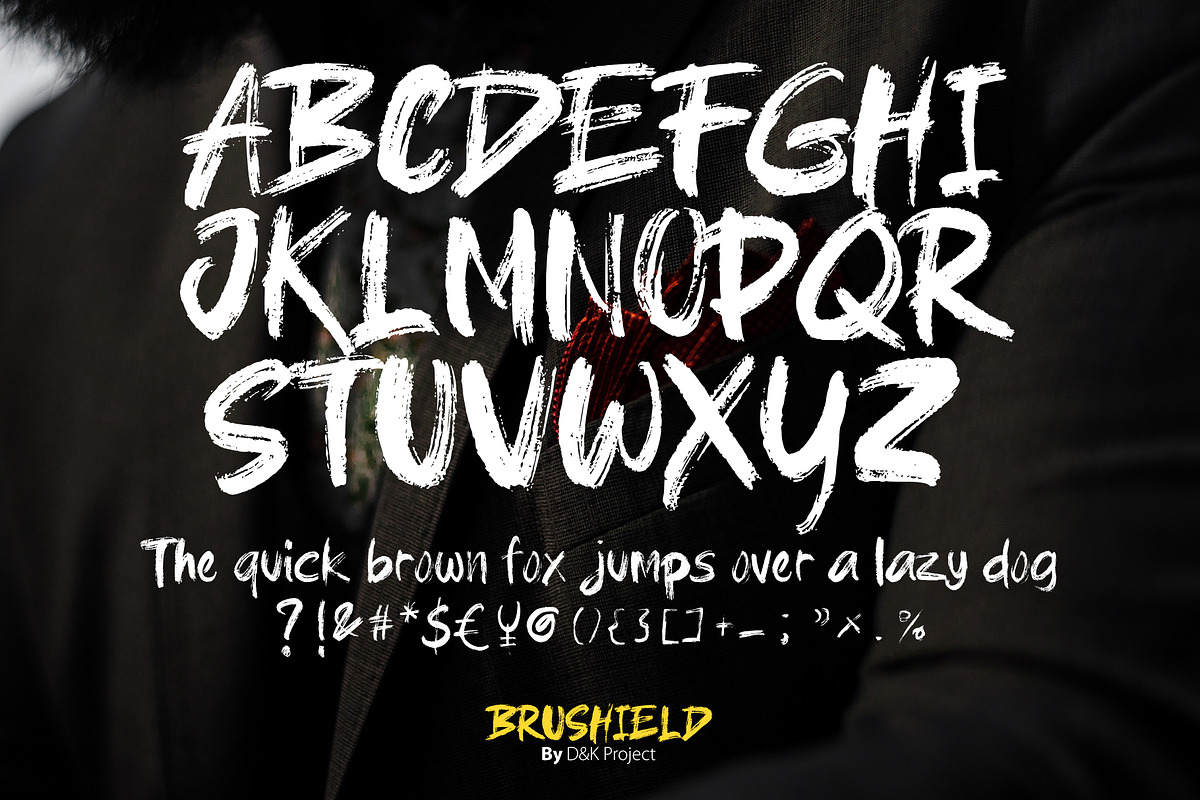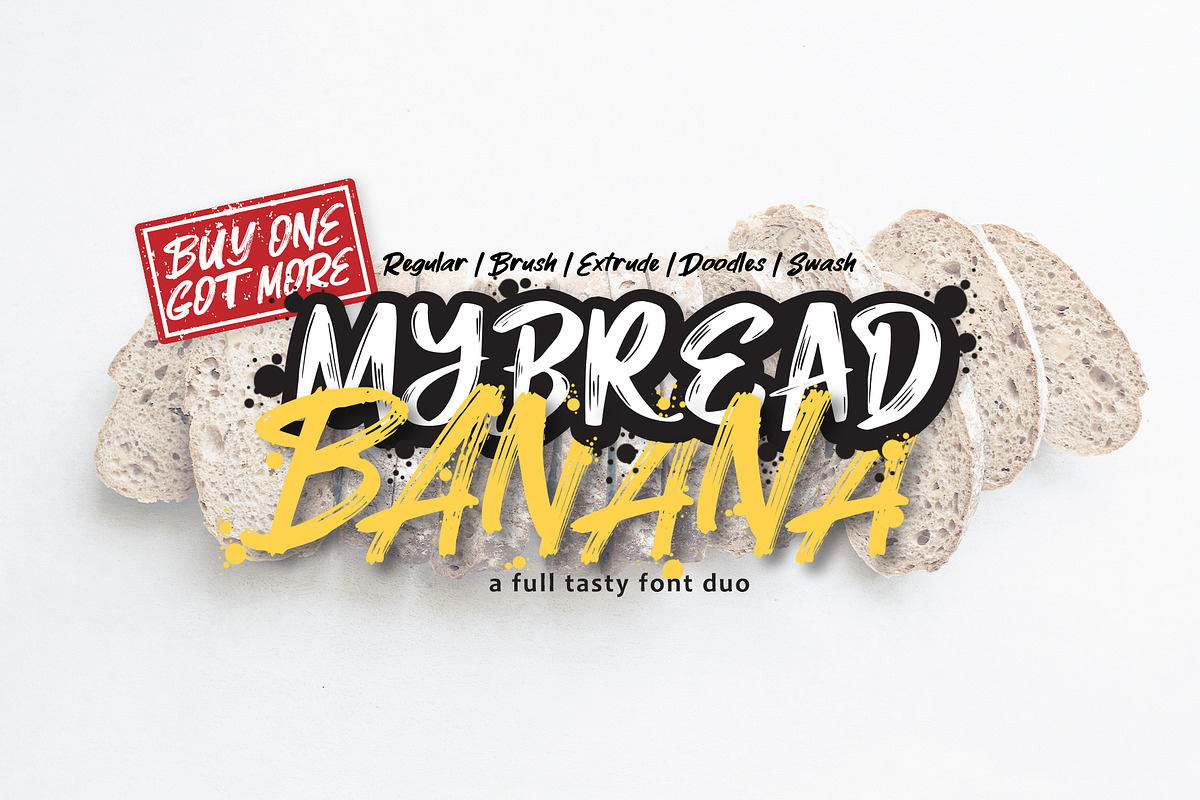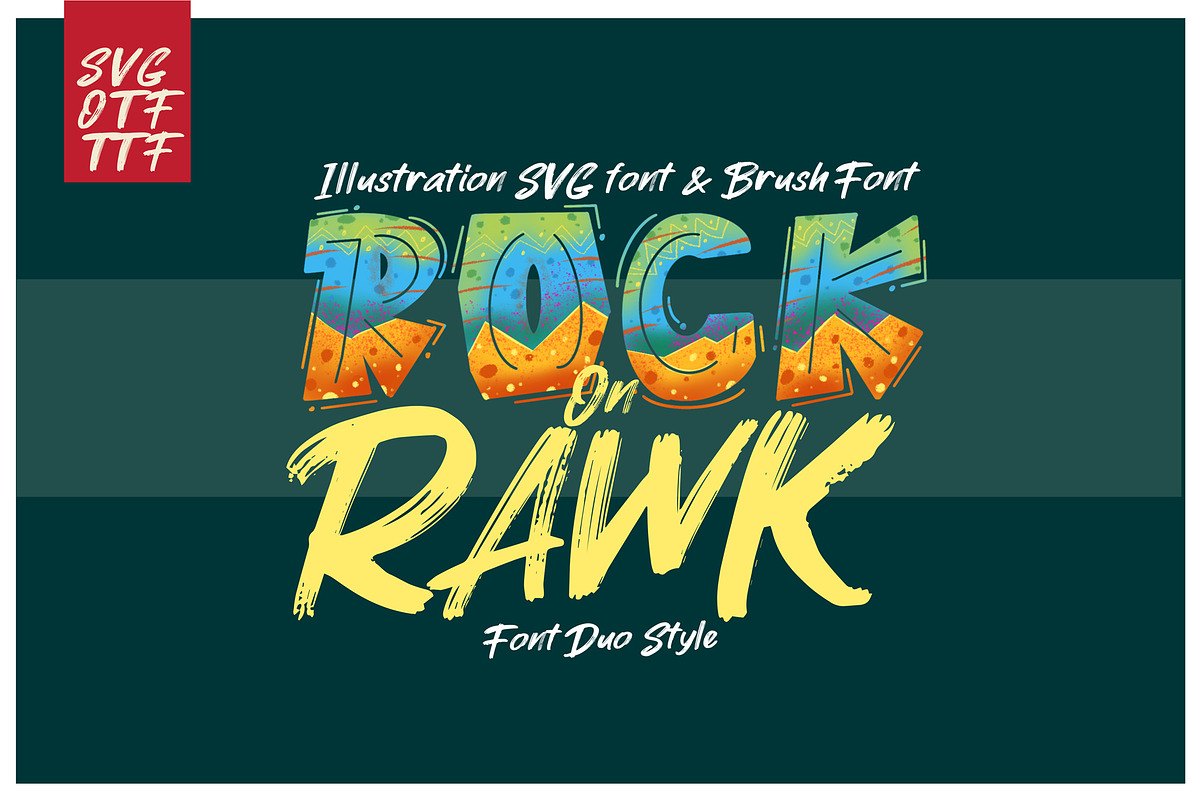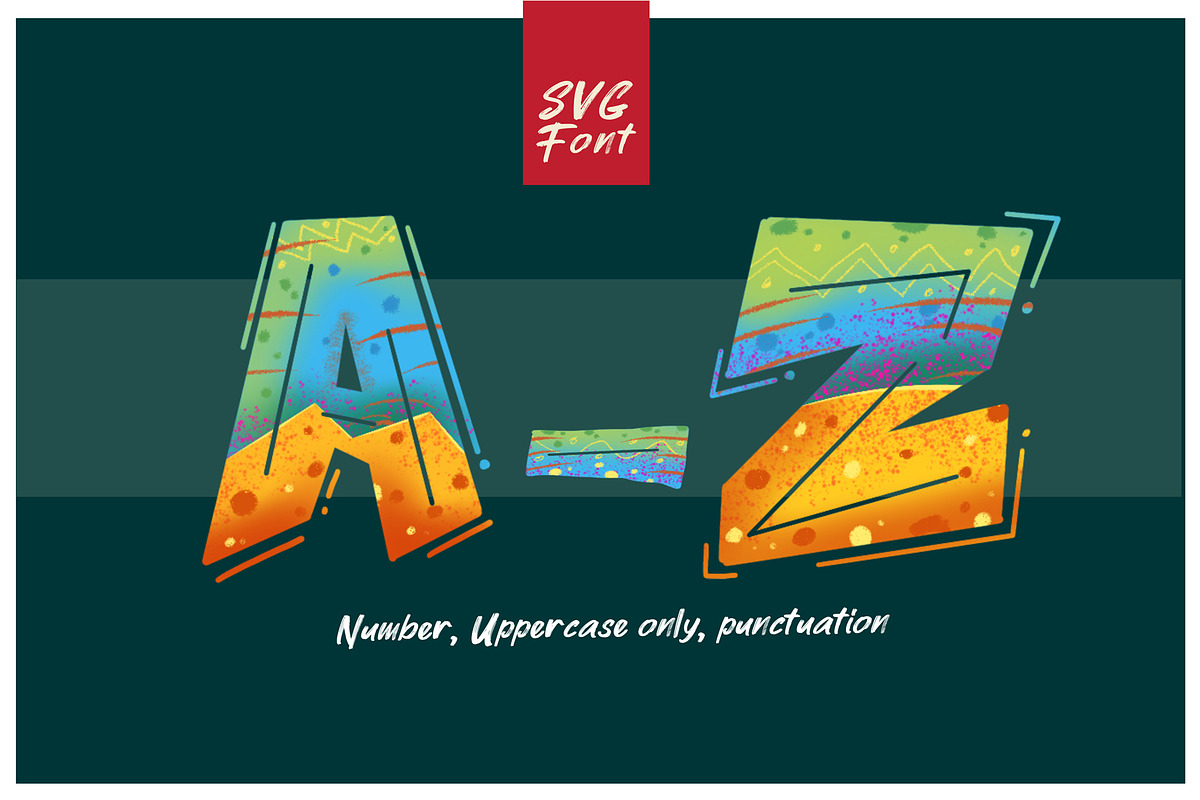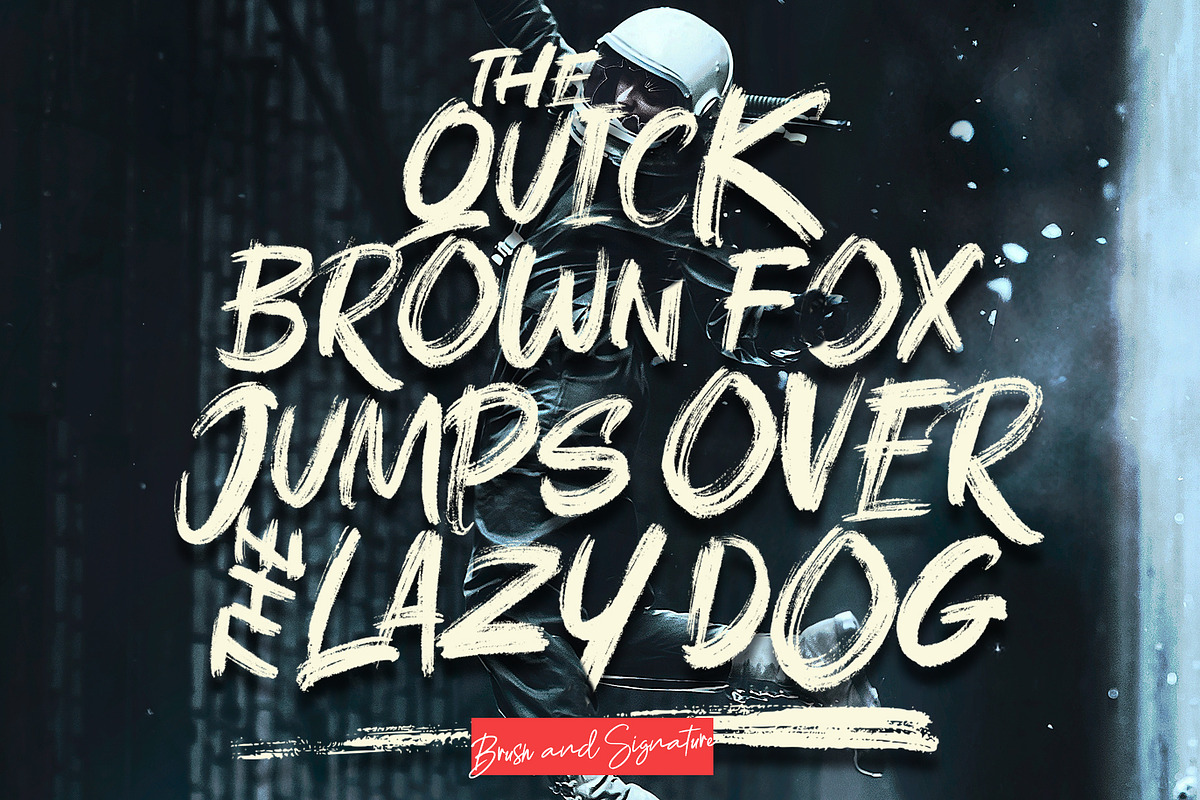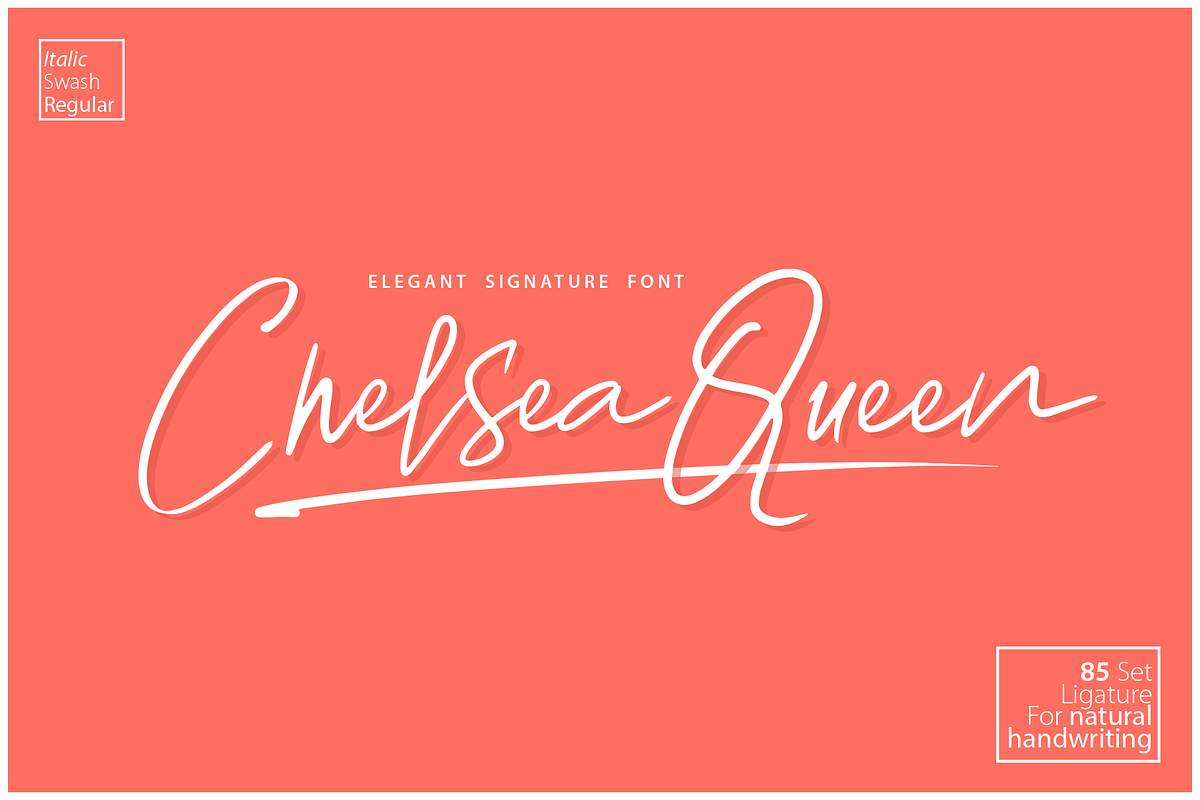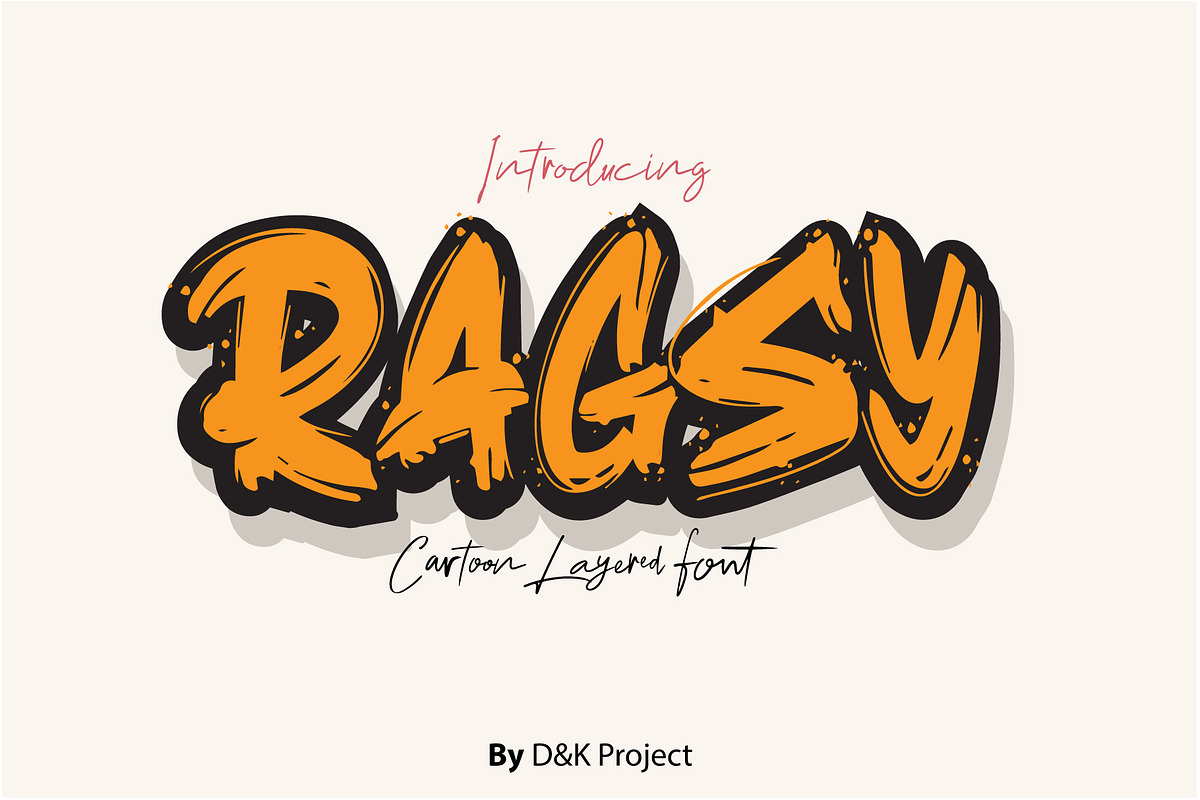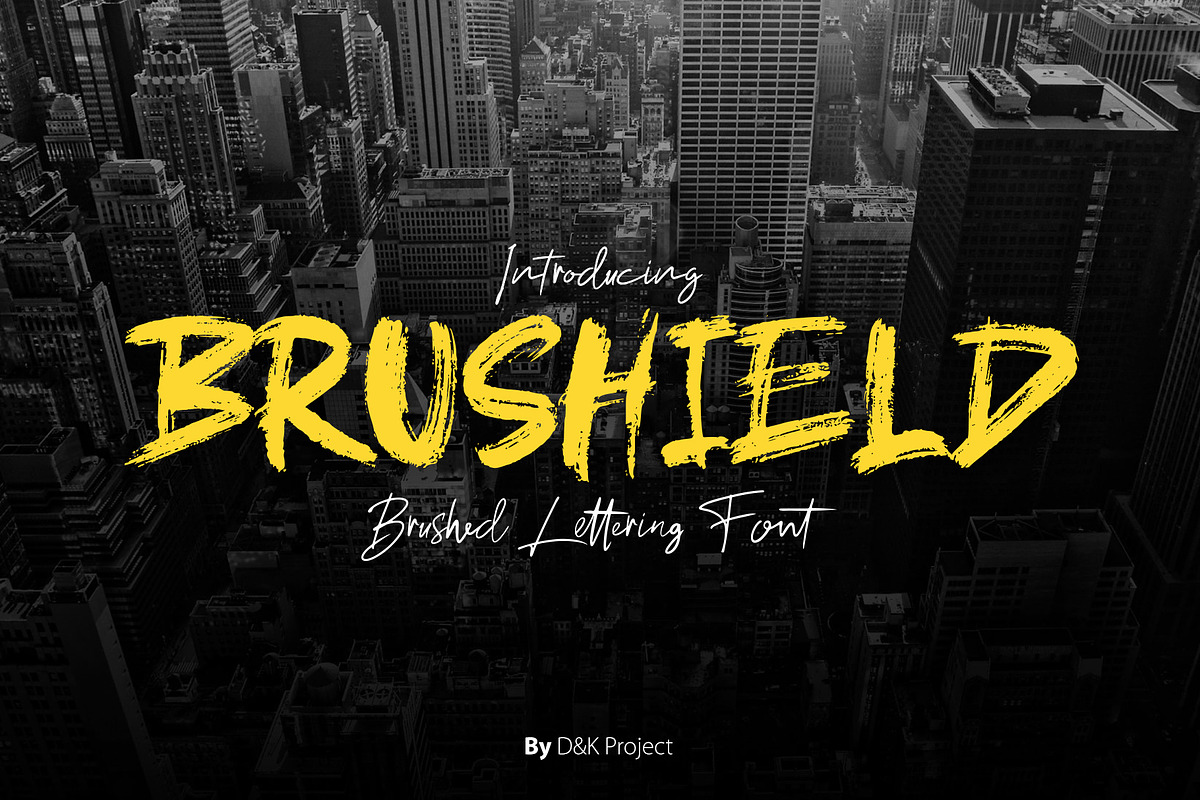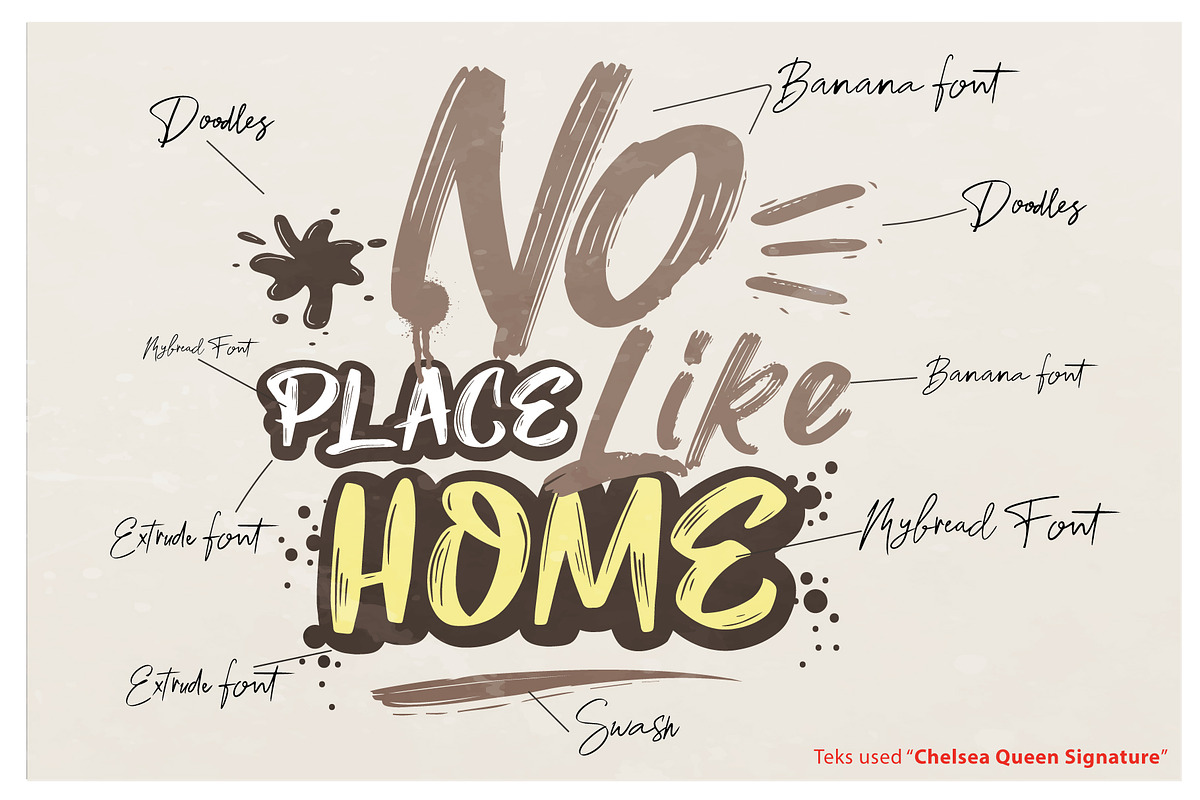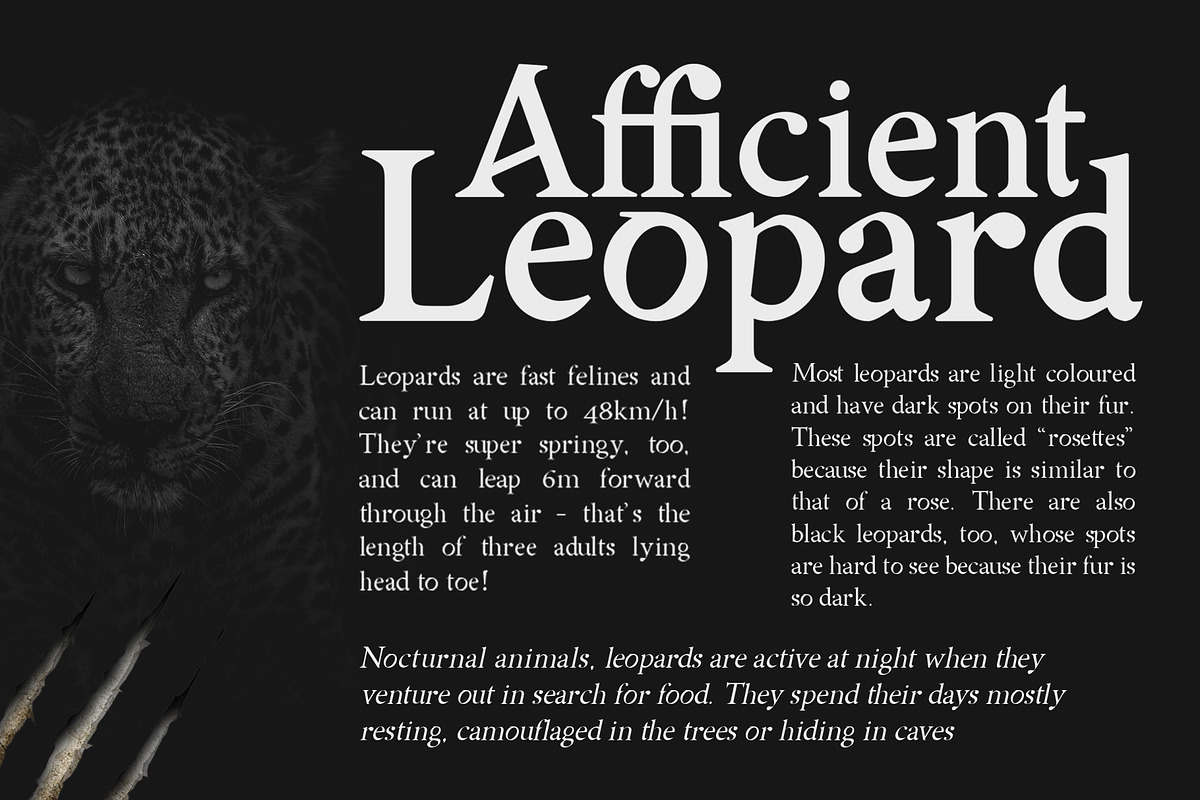
We are pleased to offer our bundle with 38 fonts and over 60 procreate brushes for lettering!. This font bundle includes a varied range of font styles such as, calligraphy, signature, brush lettering, layered, fun, display and more. Many have alternates, webfont, ligatures and swashes.
- Chery Rush fun display font https://crmrkt.com/2r80aR
- Rushink font Duo https://crmrkt.com/vBj7RM
- Rabsy: African pattern font https://crmrkt.com/jqdJB1
- Chelsea Queen || Elegant Signature https://crmrkt.com/A9WvGD
- MyBread Banana Font Duo https://crmrkt.com/RdgrEx
- Brushield | Handwritten brush font https://crmrkt.com/VjVoo1
- Ragsy | Cartoon layered font https://crmrkt.com/zw9aVQ
- ROCK on RAWK | SVG Font Duo https://crmrkt.com/kvlgMo
- Asmath a Sharp Serif https://crmrkt.com/83GmXx
- RASQUAKE brush font + EXTRA swashes https://crmrkt.com/83Gwl2